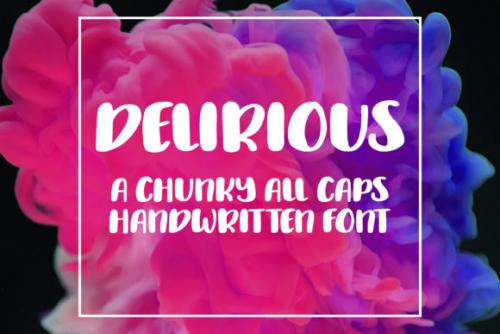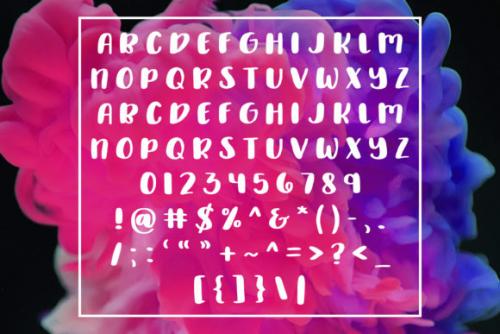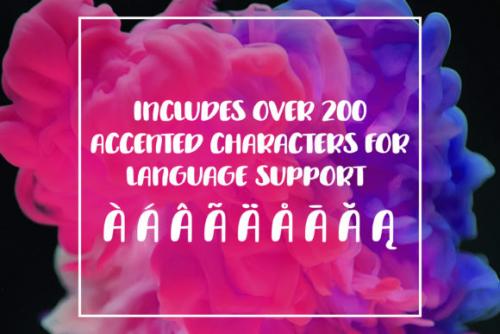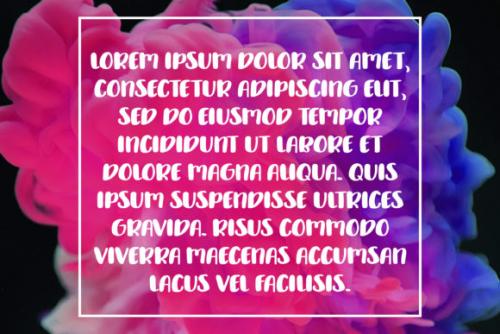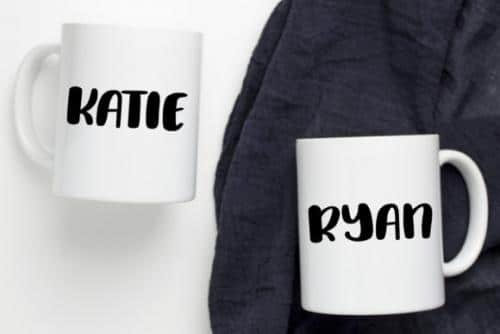
The Delirious is a hand lettered sans-serif font. This chunky all caps font would be perfect for a tumbler decal or a t-shirt design!
- Designer: SavoringSurprises